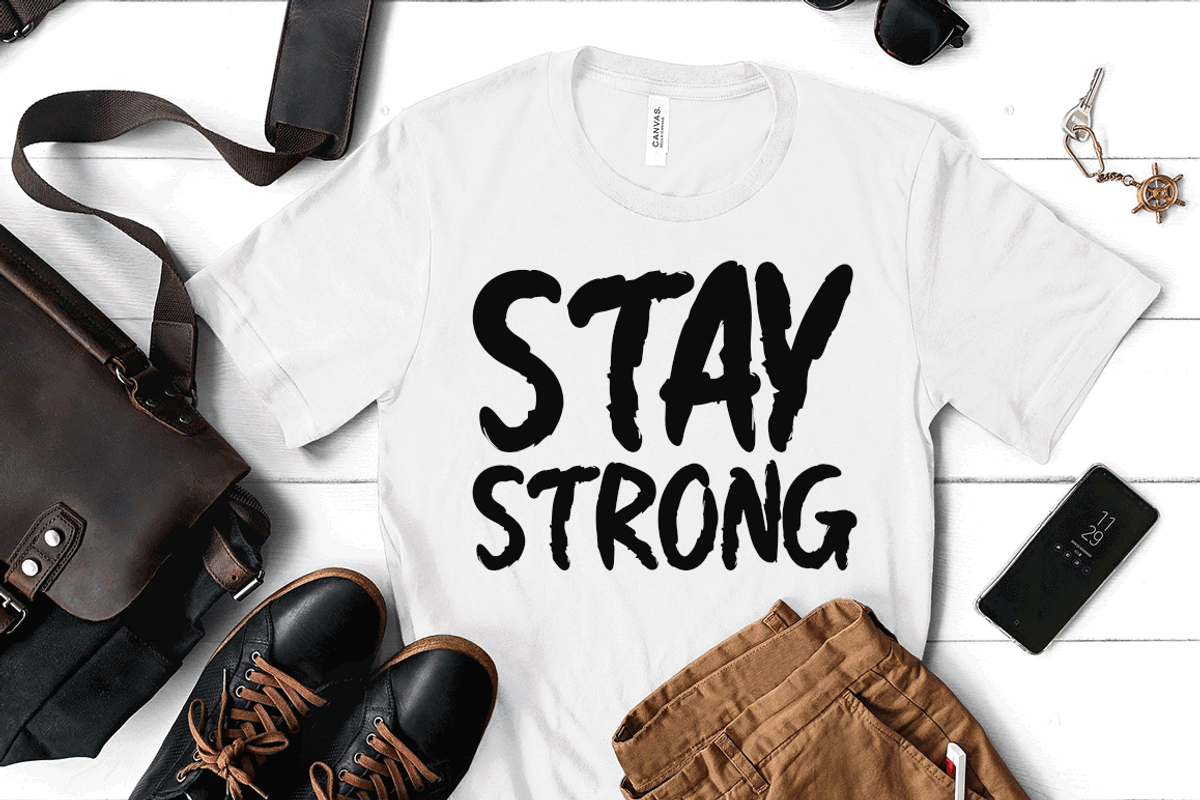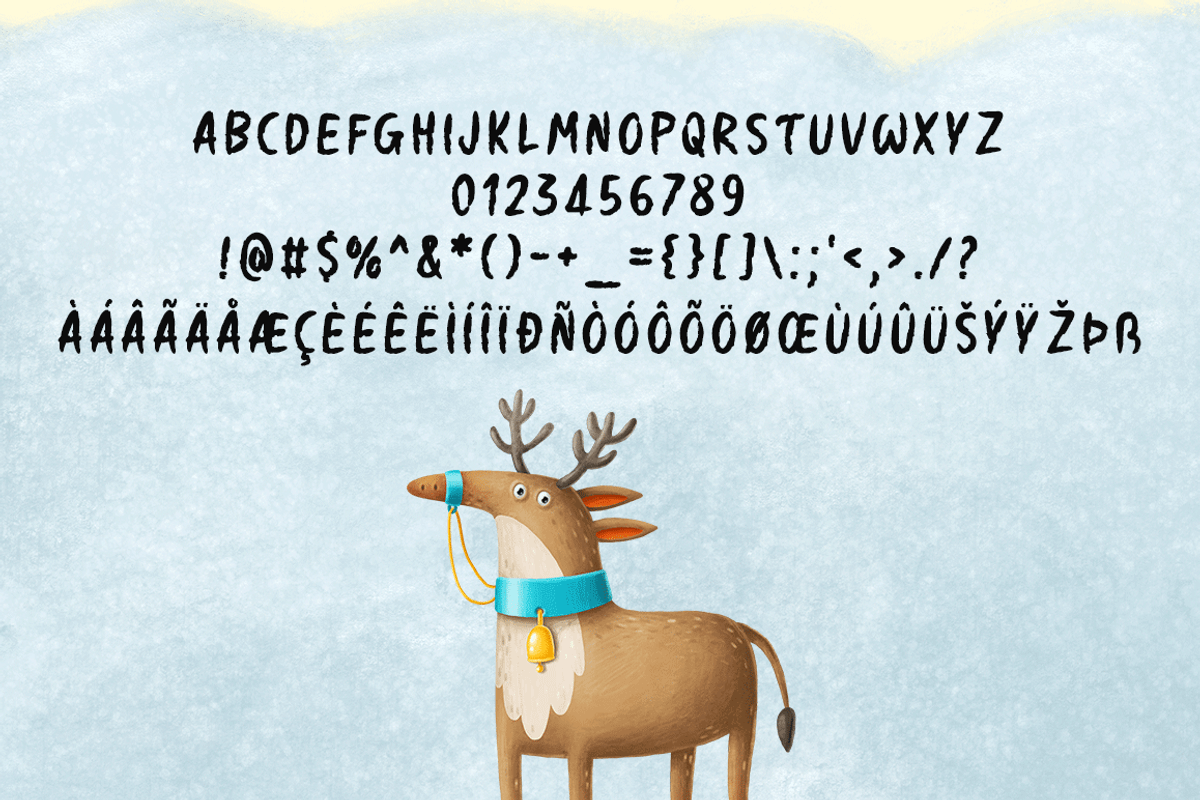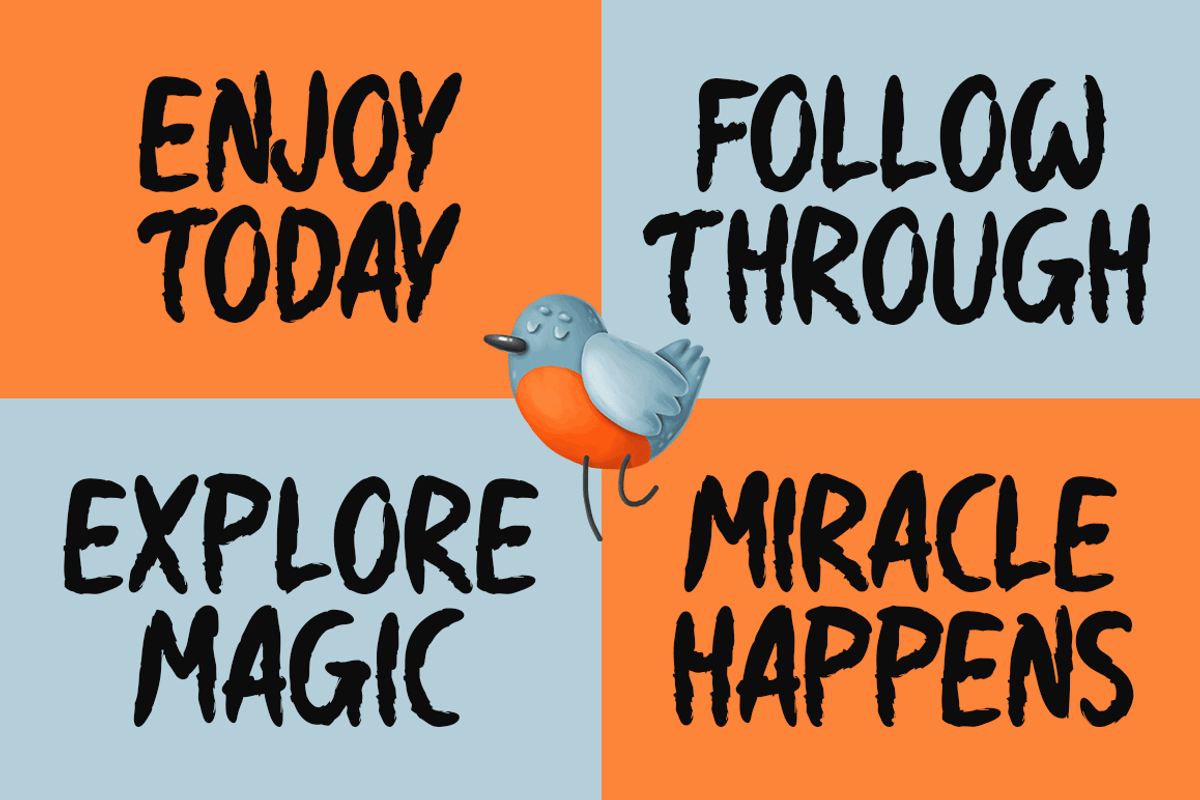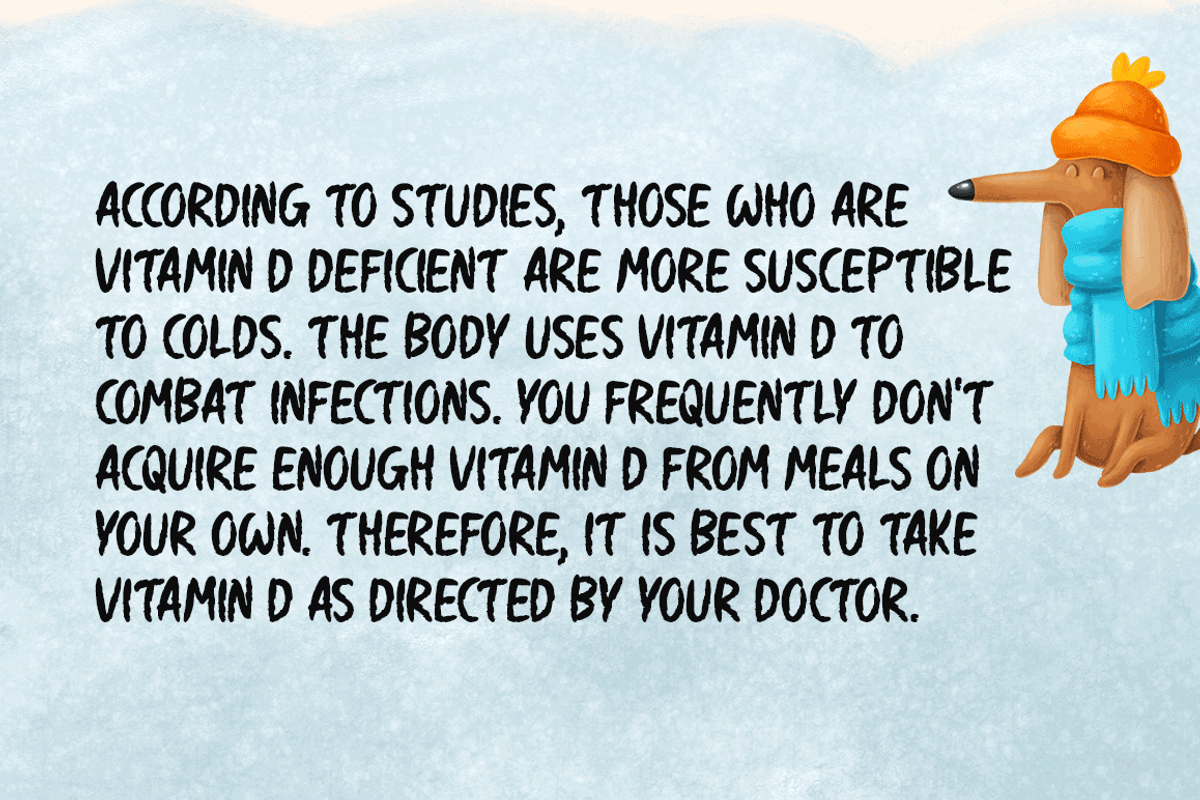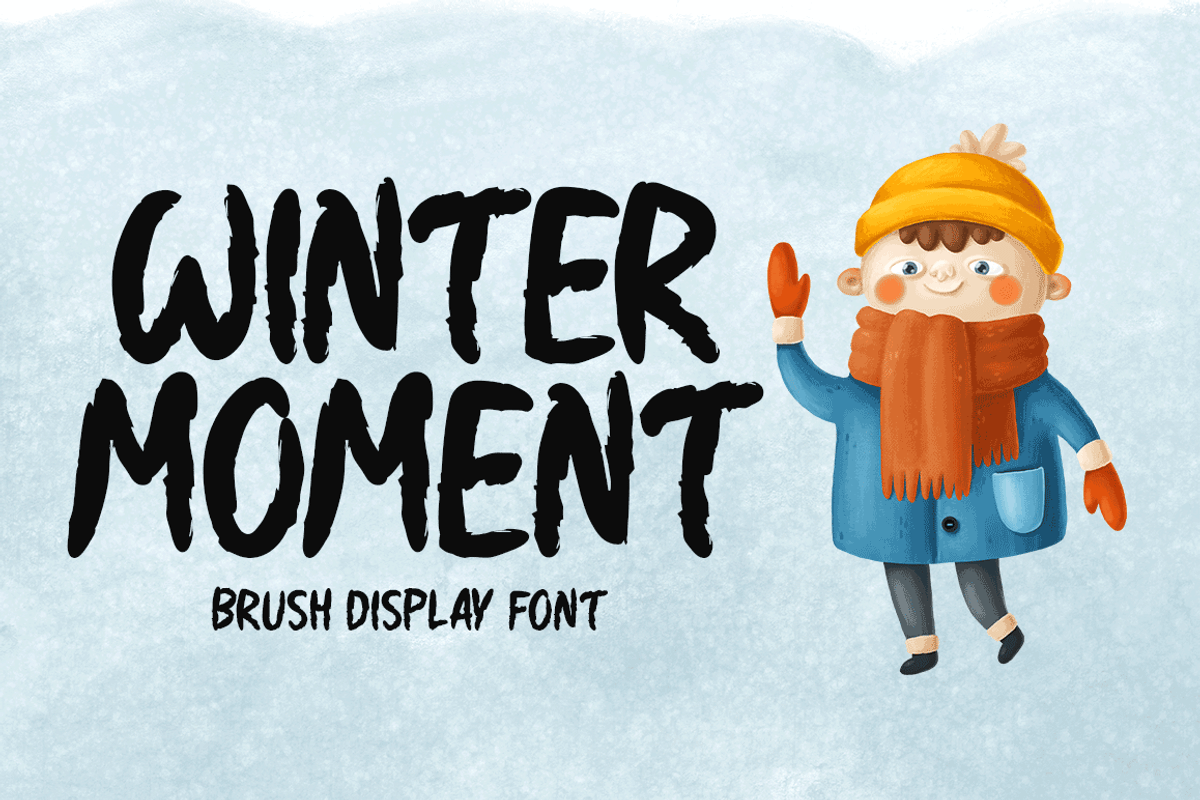
Winter Moment Typeface
Introducing Winter Moment!
Winter Moment, a new brushed display typeface. A variety of different things, including stationery, logos, t-shirts, paper, print designs, website headers, picture frames, flyers, record covers, posters, image sliders, and much more.
Includes a range of multilingual support